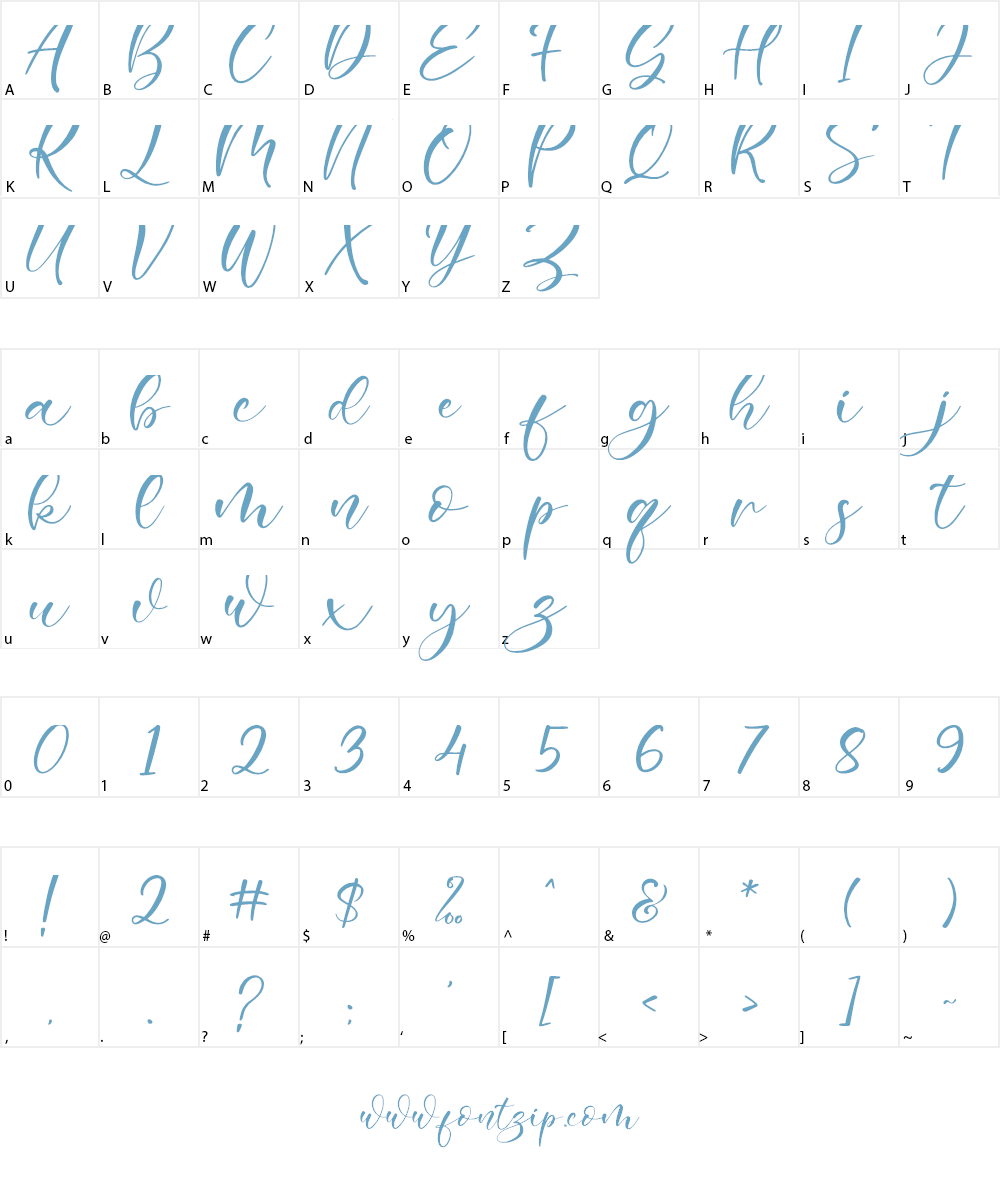
The Sweetie Bunny is a beautiful typeface. It has a feminine and elegant look which is great for logos, invitations and blogs, but can also be used to make a striking headline.